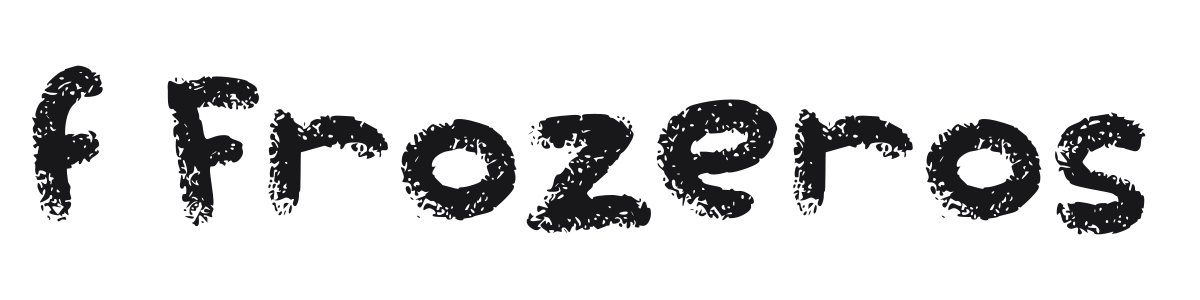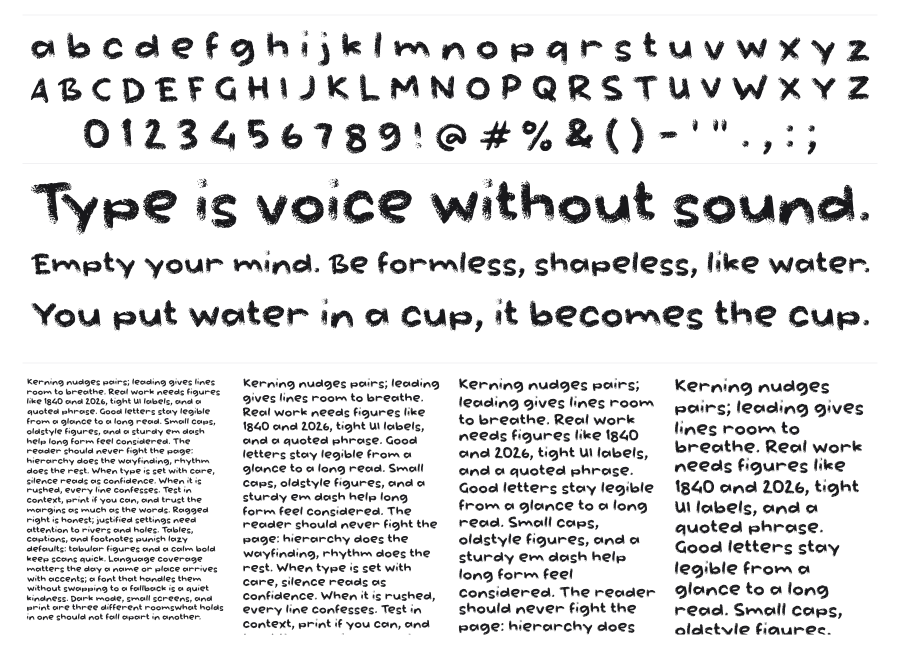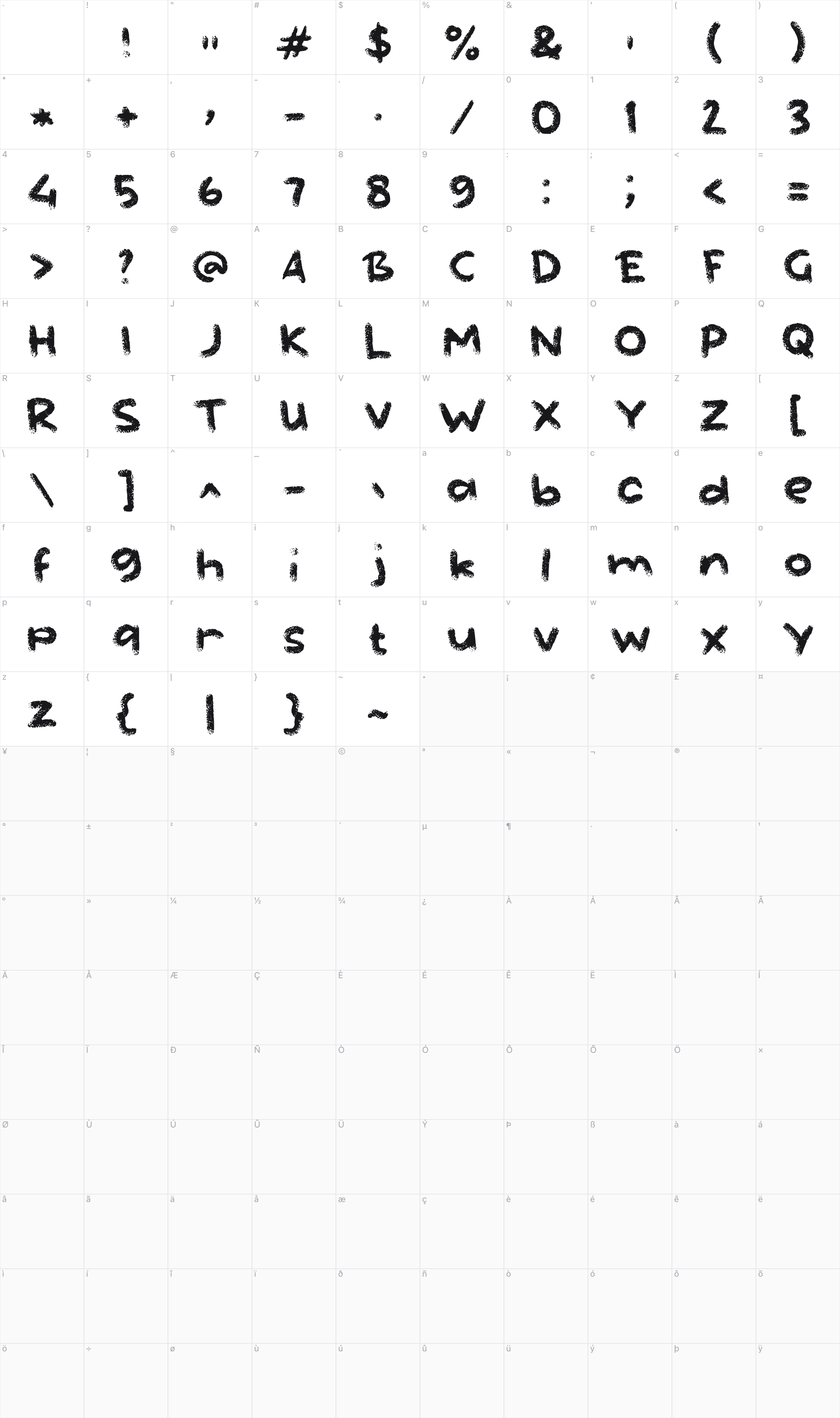
f Frozeros
Frozeros is a bold, grungy handwritten font with a rough, chalk-like texture that gives every character a raw, street-worn feel. The thick rounded strokes sit on a loosely irregular baseline, lending it an energetic, DIY personality. It works well at large sizes where the texture reads clearly.